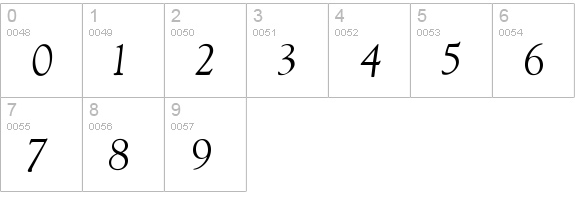
GoudyItalic Font Details
GoudyItalic is a classic and elegant typeface that exudes sophistication and charm. Its slender, flowing strokes and distinctive serifs give it a timeless appeal that is perfect for adding a touch of class to any design project. The graceful curves and refined letterforms of GoudyItalic make it ideal for use in invitations, headings, and other elegant applications where a touch of sophistication is desired. What sets GoudyItalic apart is not just its beauty, but also the fact that it is available for free download at FontsMarket.com. This means that you can add this stylish font to your collection without any cost, making it a valuable addition to your design toolkit. Whether you're working on a wedding invitation, a branding project, or any other creative endeavor, GoudyItalic is sure to elevate your design and leave a lasting impression. Download GoudyItalic today and bring a touch of timeless elegance to your projects.